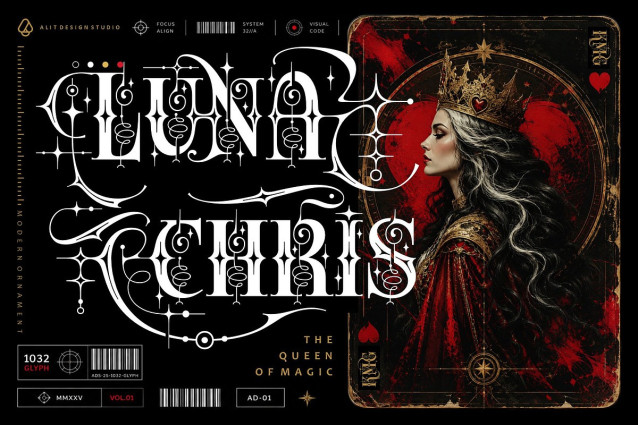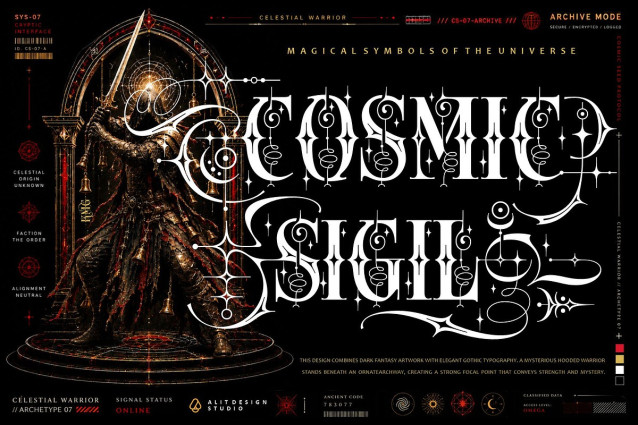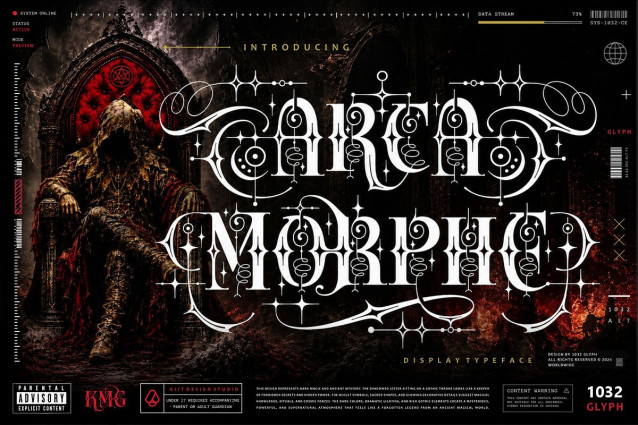
Arca Morphe Font
Arca Morphe Font is defined by its sweeping, ornate swashes, celestial starburst accents, and complex, labyrinthine linework that evokes the feeling of ancient grimoires and forgotten magical sigils. Whether you are summoning the atmosphere of a dark fantasy epic, crafting the branding for an arcane society, or designing striking merchandise, Arca Morphe delivers an aesthetic of “Savage Elegance” that commands attention.
A Universe of Design Possibilities This typeface is a powerhouse of versatility, boasting a massive library of 1032 glyphs. It is meticulously engineered to give designers ultimate control over their typography. With an extensive collection of alternate characters and custom ligatures, you can endlessly customize your text to create truly unique, bespoke wordmarks and headings.